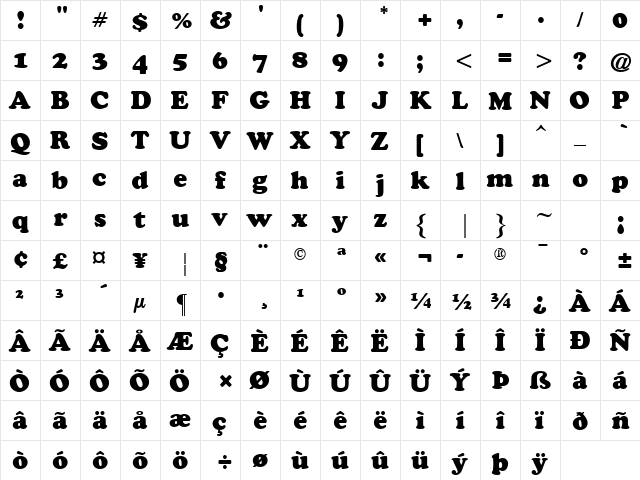
Darken Holpa Regular Font Preview
Darken Holpa Regular
Darken Holpa Regular Font Details
Design Context for Darken Holpa Typeface
Darken Holpa takes a measured approach to typography — its balanced proportions and neutral character make it a reliable workhorse for both digital and print work.